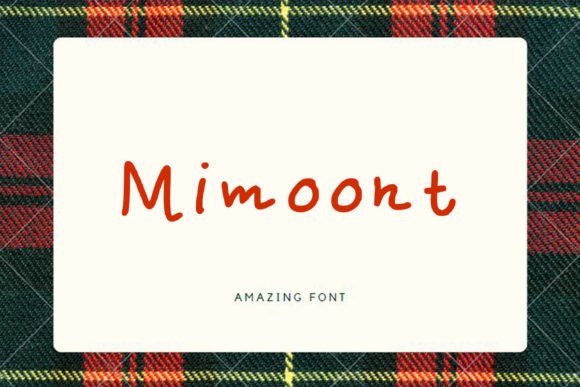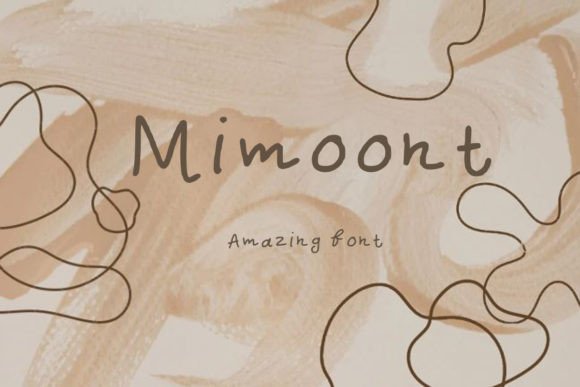
Mimoont Font
About Mimoont Font
“Mimoont” is a casual and friendly handwritten font that infuses a sense of playfulness into your designs. With its whimsical and quirky style, this font has the ability to add a delightful touch to your creative projects. When you incorporate “Mimoont” into your work, you’ll discover how it effortlessly brightens up each design, creating results that you’ll love.
The charm of “Mimoont” lies in its casual and friendly lettering. Its whimsical characters and approachable style create a visually engaging and delightful experience, making it an ideal choice for projects that aim to convey a sense of creativity and friendliness.
One of the standout qualities of “Mimoont” is its confidence-inspiring design. Whether you’re using it for branding, designing cheerful posters, adding a touch of whimsy to web graphics, or infusing a playful spirit into various other projects, “Mimoont” integrates seamlessly into your creative vision.
This font’s ability to brighten up your designs sets it apart. Whether you’re working on personal or professional endeavors, “Mimoont” brings a unique and enjoyable quality to your work that resonates with a diverse audience.
In summary, “Mimoont” is more than just a font; it’s a playful and versatile creative tool that can enhance your projects. Whether you’re a professional designer or someone passionate about crafting and design, “Mimoont” is here to make your designs come to life with its casual and friendly script. Embrace the whimsy of “Mimoont,” and watch your creativity flourish with delightful results.